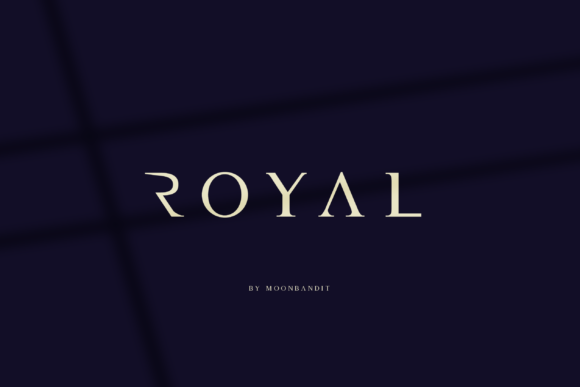
Introducing Royal Font, the epitome of luxury and elegance in the world of typography. This exquisite serif font, created by the talented moonbandit, is specifically designed to captivate your senses and elevate your visual storytelling. Whether you're looking to enhance your designs for social media or create stunning headlines, Royal Font is your ultimate companion.
With its unparalleled versatility, Royal Font takes your creativity to new heights. Its timeless appeal makes it a perfect choice for various applications, from greeting cards that leave a lasting impression to captivating headlines that demand attention. This font effortlessly adds a delicate and sophisticated touch to any project, ensuring that your message stands out from the crowd.
Imagine the impact of Royal Font gracing your Facebook posts, exuding confidence and elegance with every letter. It effortlessly catches the eye and evokes a sense of grandeur, instantly making your content more engaging and memorable. Whether you're sharing a heartfelt message or promoting your business, this font will elevate your presence on the platform and leave a lasting impression on your audience.
But the allure of Royal Font doesn't stop there. Its meticulously crafted curves and unique character set make it a true work of art. Each letter is meticulously designed to bring your words to life, enhancing the overall aesthetic of your project. This attention to detail ensures that your designs are not only visually appealing but also exude a sense of professionalism and refinement.
Additionally, Royal Font offers an extensive range of weights, allowing you to experiment and find the perfect balance for your specific needs. Whether you prefer a bold statement or a subtle elegance, this font has got you covered. Its versatility ensures that you can create harmonious compositions that resonate with your target audience.